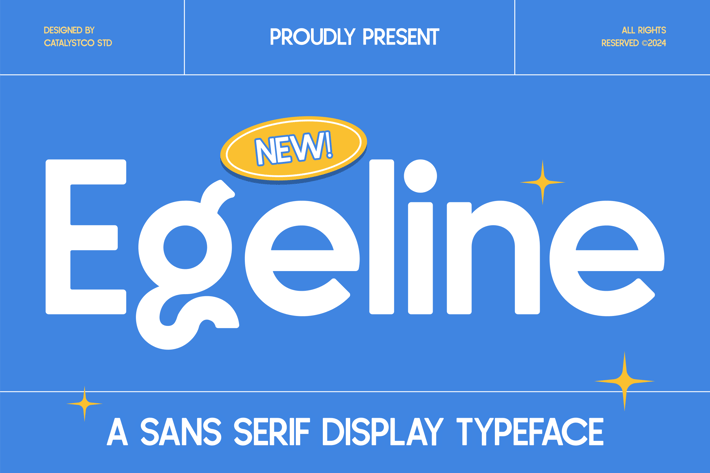
Egeline Sans Serif Display Font
Egeline is a clean and modern sans serif display typeface designed with bold geometric shapes, smooth curves, and a contemporary visual rhythm. Its balanced structure and minimalist styling create a fresh, professional look suitable for branding, digital interfaces, and editorial layouts. With crisp letterforms and versatile weights, Egeline delivers clarity and impact across print and screen applications. Perfect for designers seeking a modern sans serif that blends elegance, simplicity, and strong visual identity.
Egeline is suitable for branding projects, tech interfaces, mobile apps, corporate design, digital products, website headlines, modern posters, minimalist layouts, logo design, and professional visual identities that require a clean, geometric, and modern sans serif aesthetic.